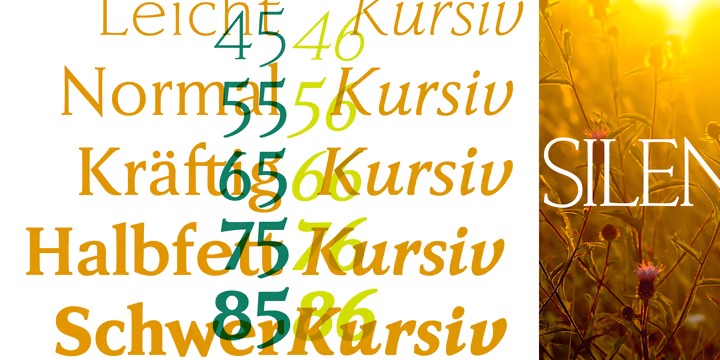
Faber Serif Pro Font
This font is a confident serif. Designed to reflect nature, it creates a sense of natural softness and expressiveness. Made from font designer named ingoFonts. This serif is the Roman typeface which was born out of the sans serif design Faber Sans. The pro­portions are nearly identical to those of Faber Sans.
In comparison, Faber Serif has heavy — although very short — serifs. The character of contrasting strokes is not very pronounced; therefore, this font is closely related to the first Roman typefaces from the 15th century. The Kursiv (Italic) also has very reserved serifs, which are quite appealing to modern reading habits.